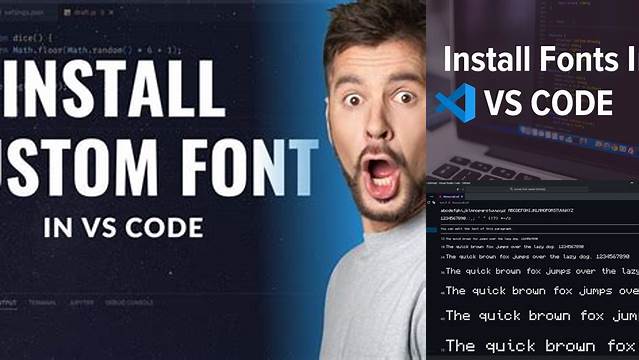
VS Code: Easy Font Installation Guide
Hey guys! Ever wonder how to jazz up your Visual Studio Code (VS Code) with some cool fonts? Changing your font can seriously improve your coding experience, making everything easier on the eyes and boosting your productivity. In this guide, we'll dive deep into how to install fonts in Visual Studio Code, covering everything from finding awesome fonts to making them work seamlessly within your favorite code editor. Let's get started! Remember, the goal is to make your coding environment as comfortable and efficient as possible. A well-chosen font can do wonders for that!
Why Customize Your VS Code Font?
So, why bother changing the default font in VS Code, anyway? Well, there are several compelling reasons. Firstly, a custom font can significantly improve readability. Some fonts are specifically designed for coding, with clear letter shapes, distinct characters, and special attention to the often-confusing aspects of code, like the difference between 'l' (lowercase L), '1' (the number one), and 'I' (uppercase i). These fonts are often monospaced, meaning each character takes up the same amount of horizontal space, which is crucial for aligning code and making it easier to scan. Secondly, a good font can reduce eye strain. Staring at code for hours can be tough on your eyes, and the right font can make a huge difference. Fonts with a higher x-height (the height of lowercase letters) and a more open design tend to be easier to read for extended periods. Thirdly, personalizing your editor with a font you love can make coding a more enjoyable experience. Let's face it, we spend a lot of time in our code editors, so why not make it a pleasant place to be? This small act of customization can boost your mood and motivation. Finally, using a different font can help you spot errors more quickly. Some fonts have unique glyphs that highlight certain characters or symbols, making it easier to identify syntax errors or typos. For example, some fonts have a distinct shape for the zero, making it easily distinguishable from the letter O. Choosing the right font is an investment in your coding workflow. It's a simple yet effective way to optimize your environment for maximum productivity and enjoyment. Don't underestimate the power of a well-chosen font – it can truly transform your coding experience. You might even find yourself coding more just because your editor looks so good!
Benefits of Specific Fonts for Coding
Specific fonts are designed with coding in mind, and they offer several advantages over general-purpose fonts. These fonts often incorporate features like ligatures, which are special characters that combine two or more characters into a single glyph. For instance, the '->' symbol might appear as a single arrow, making the code more visually appealing and easier to read. Monospaced fonts are a cornerstone of coding fonts, ensuring that each character takes up the same width. This consistent spacing is crucial for aligning code elements, such as columns in tables or the components of a complex mathematical formula. They also have distinct characters to easily tell apart similar characters. Another critical feature of coding fonts is enhanced clarity of symbols. These fonts are engineered to make the difference between similar-looking characters clear, like 'l' (lowercase L), '1' (the number one), 'I' (uppercase i), and '0' (the number zero), thus reducing the chance of errors caused by visual ambiguity. Coding fonts are also crafted to be easily readable for extended periods. They are designed with considerations for eye strain. This usually includes features like a higher x-height, which makes the letters larger and easier to read, and an open design, which improves the readability of the letters. Furthermore, these fonts may include visual cues that highlight syntax. Different parts of the code might appear in different styles (like bold or italics) or color-coded to make it easier to spot certain elements. Moreover, the design of coding fonts often prioritizes the visual distinctiveness of operators and keywords, ensuring they stand out from the rest of your code. The right font can improve your coding speed and accuracy. Choosing a specialized coding font is a strategic move that pays off in the long run. Coding fonts are made to make your coding life easier.